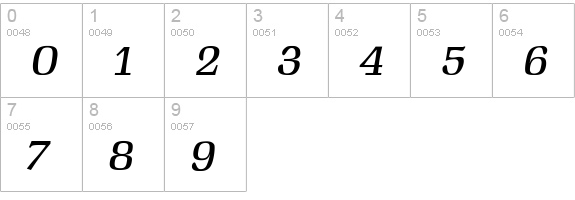
AntikvaItalic Font Details
AntikvaItalic font is a timeless typeface that exudes elegance and sophistication. With its graceful curves and delicate serifs, this font is perfect for adding a touch of class to any design project. Whether you're creating invitations, branding materials, or editorial layouts, AntikvaItalic will elevate your work to new heights. The best part? AntikvaItalic is available for free download at FontsMarket.com. You can easily access this exquisite font and enhance your creative projects with its timeless charm. Don't miss out on the opportunity to add AntikvaItalic to your font collection and bring a touch of sophistication to your designs.